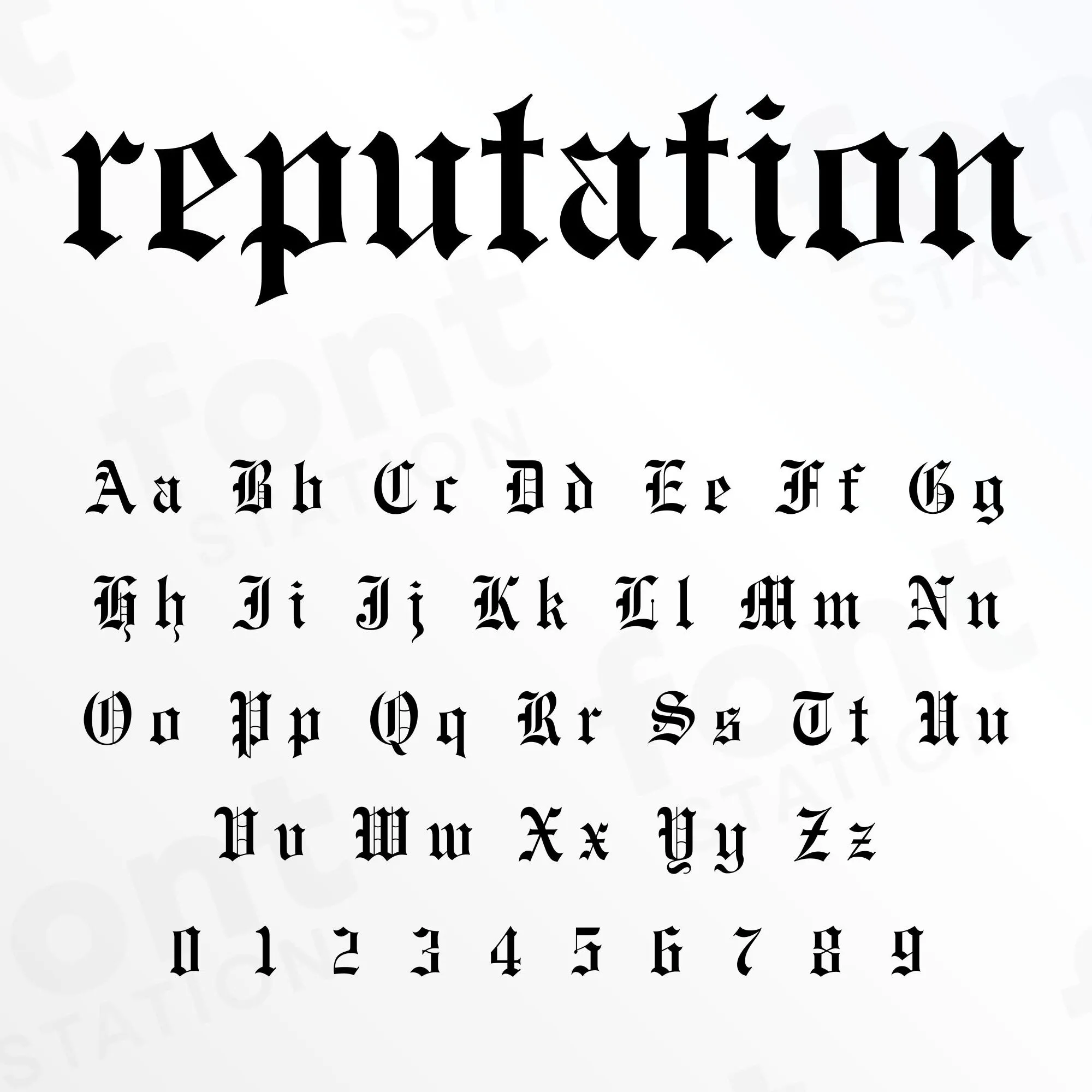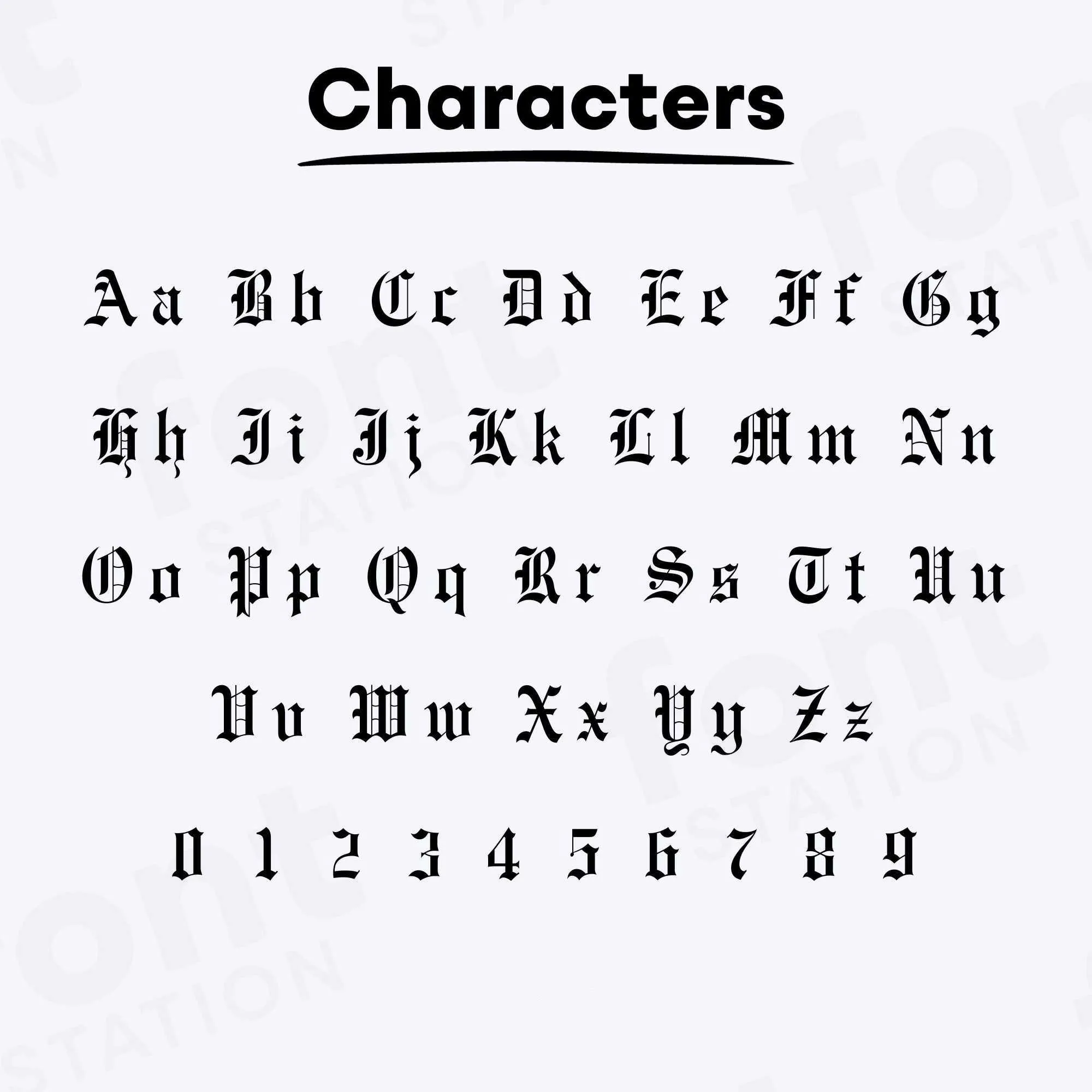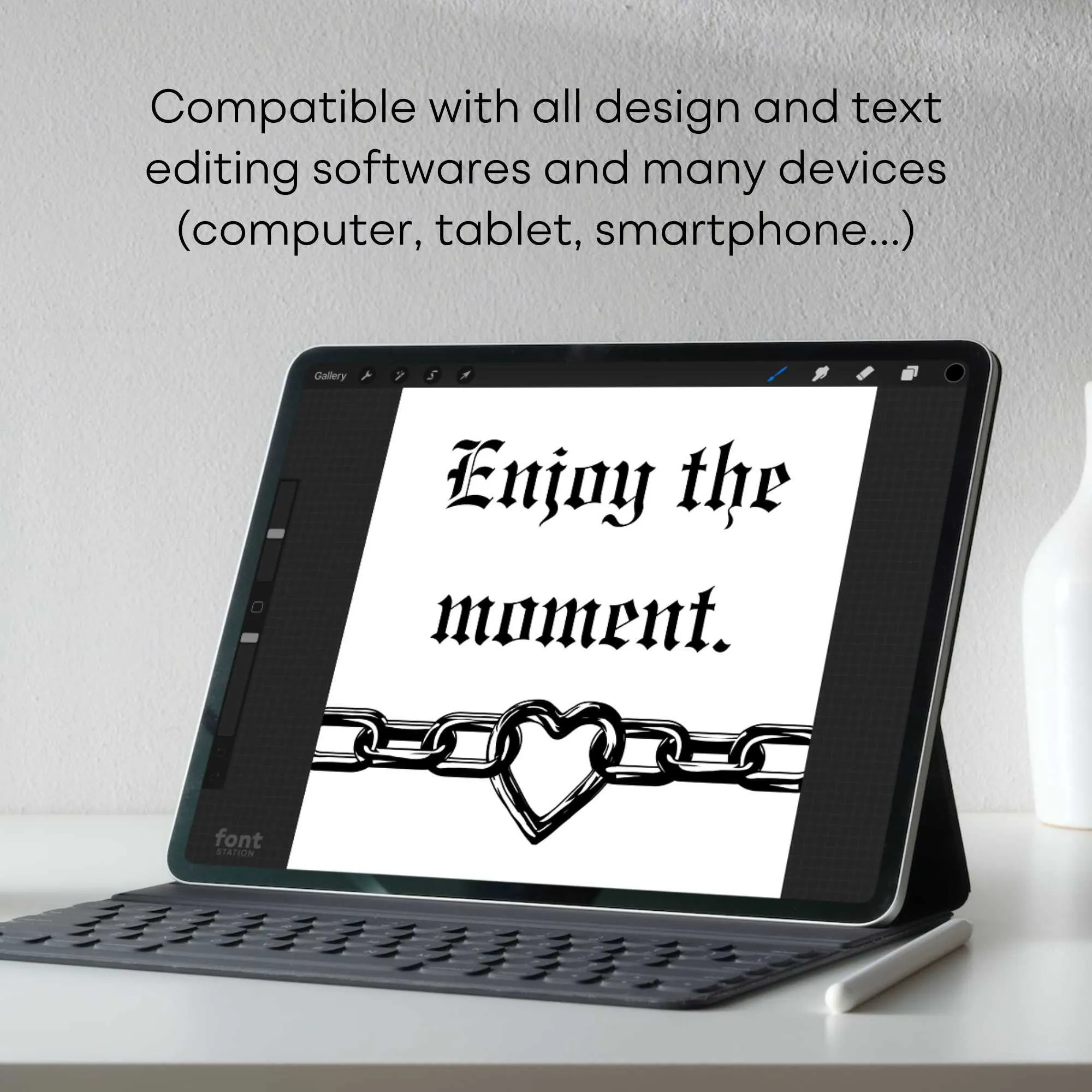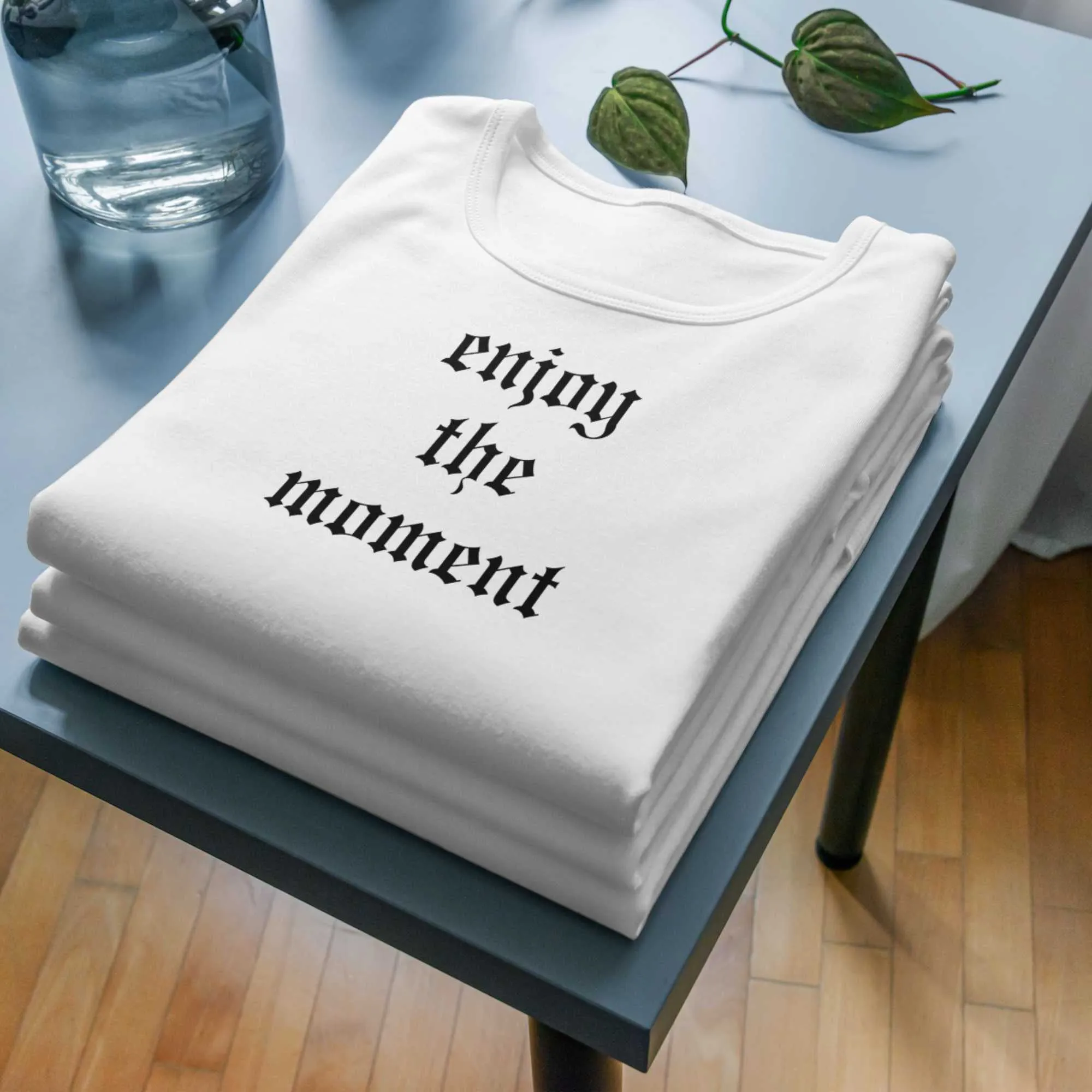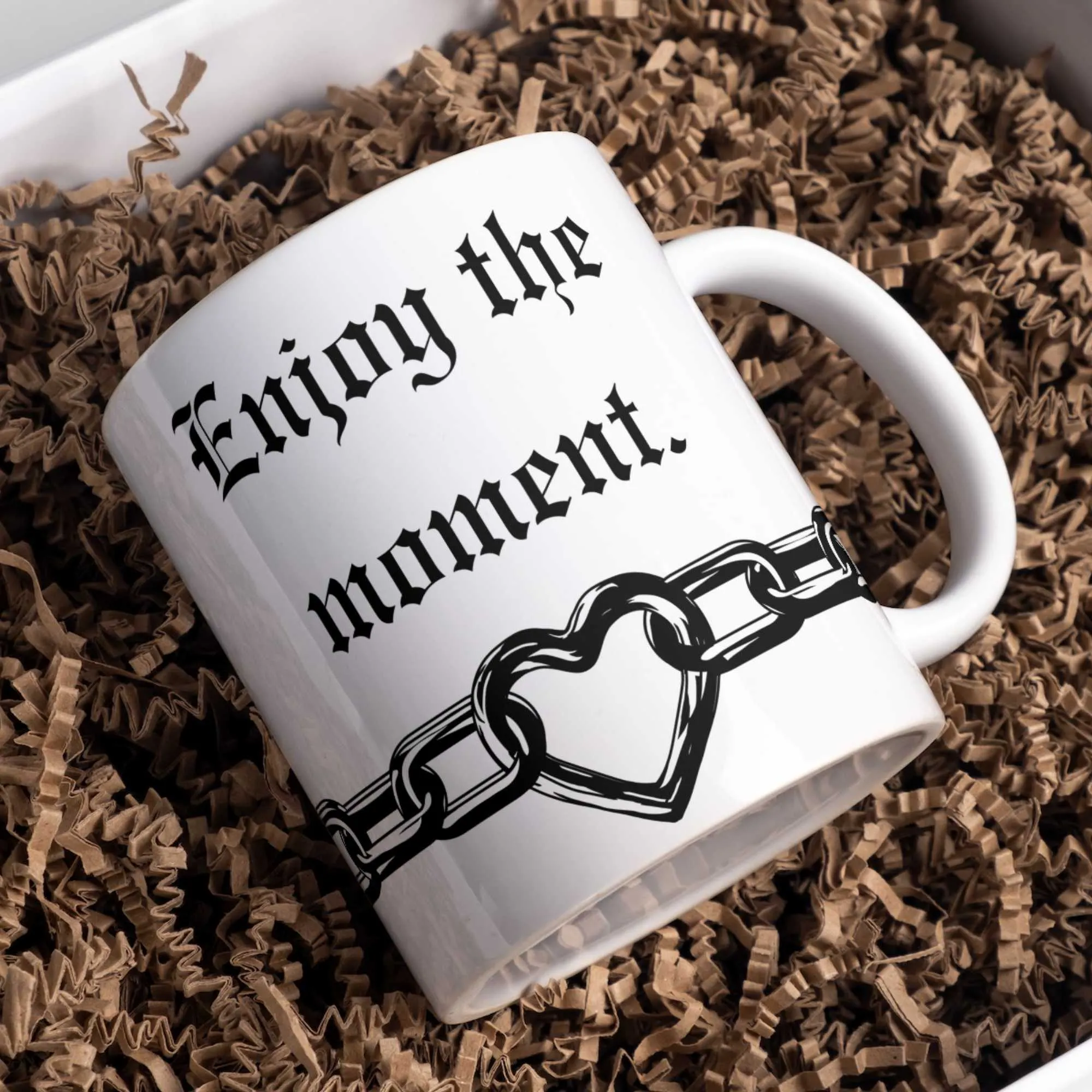
Our Reputation typeface, inspired from Taylor’s Version Rep Album font
Image showing all characters available in the Reputation font created by FontMaze.
Reputation Font